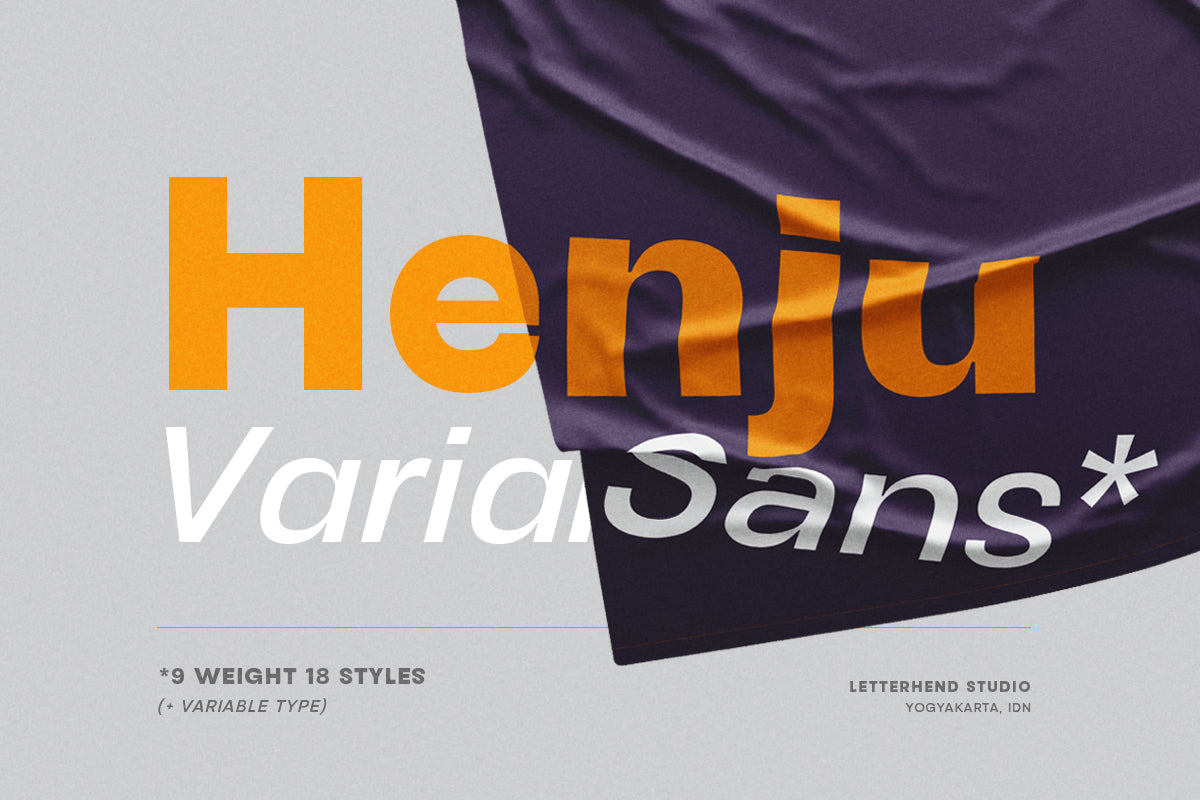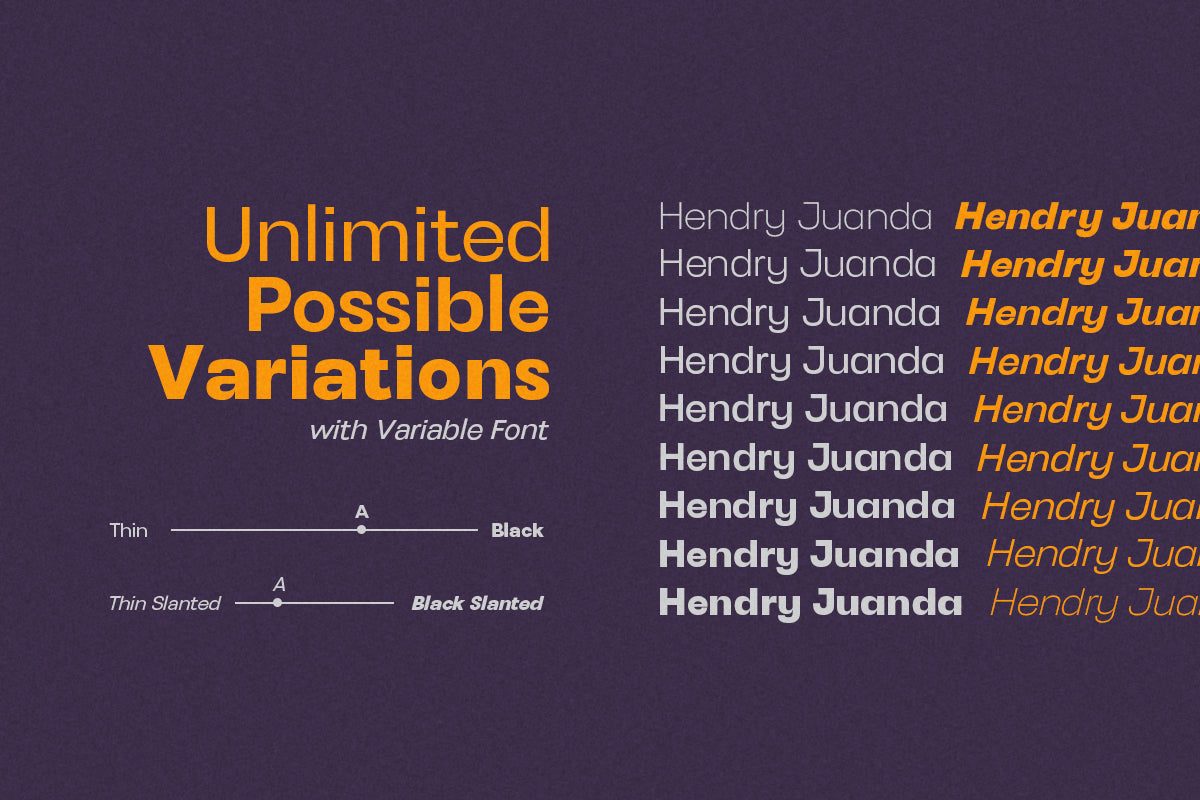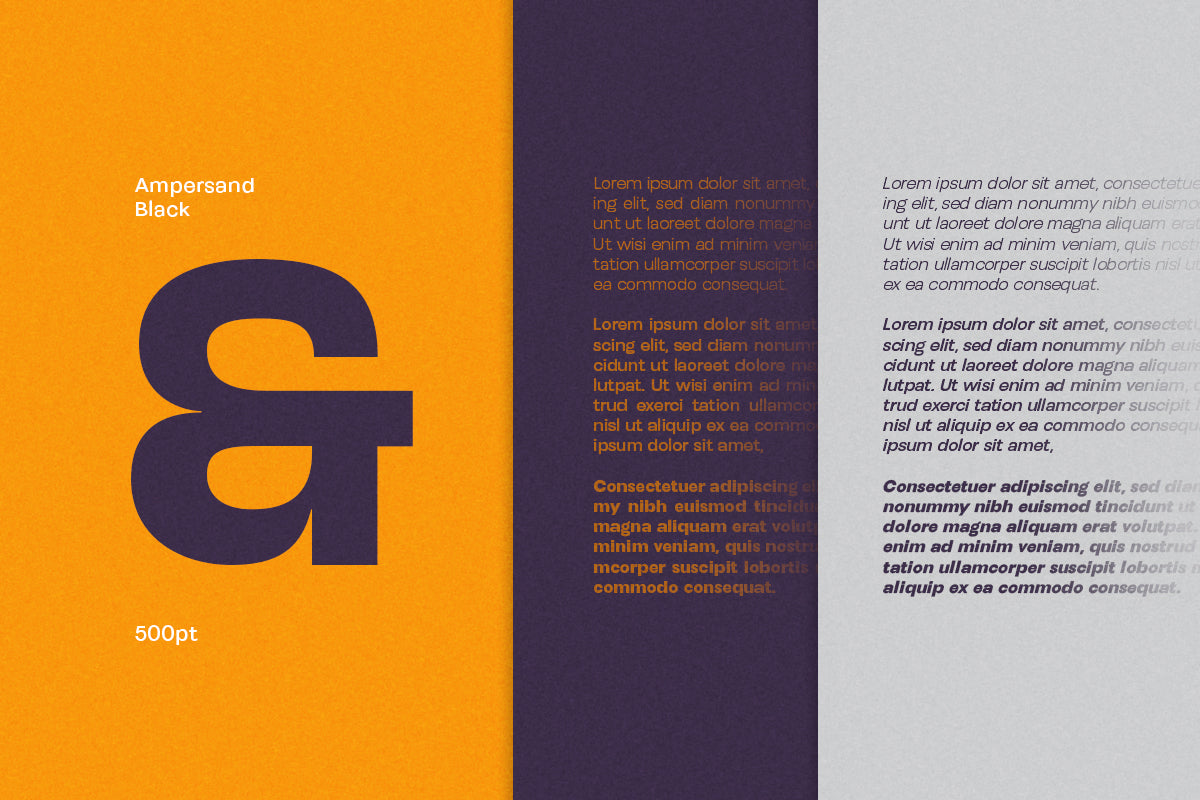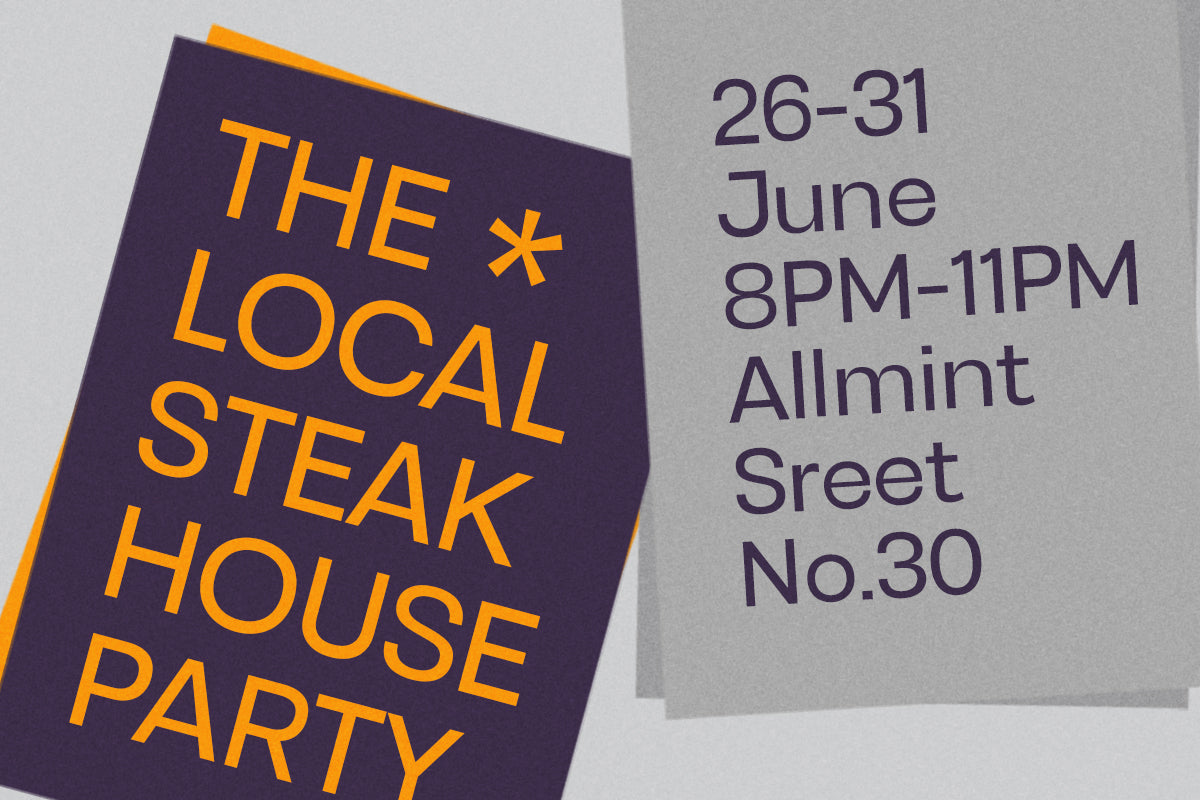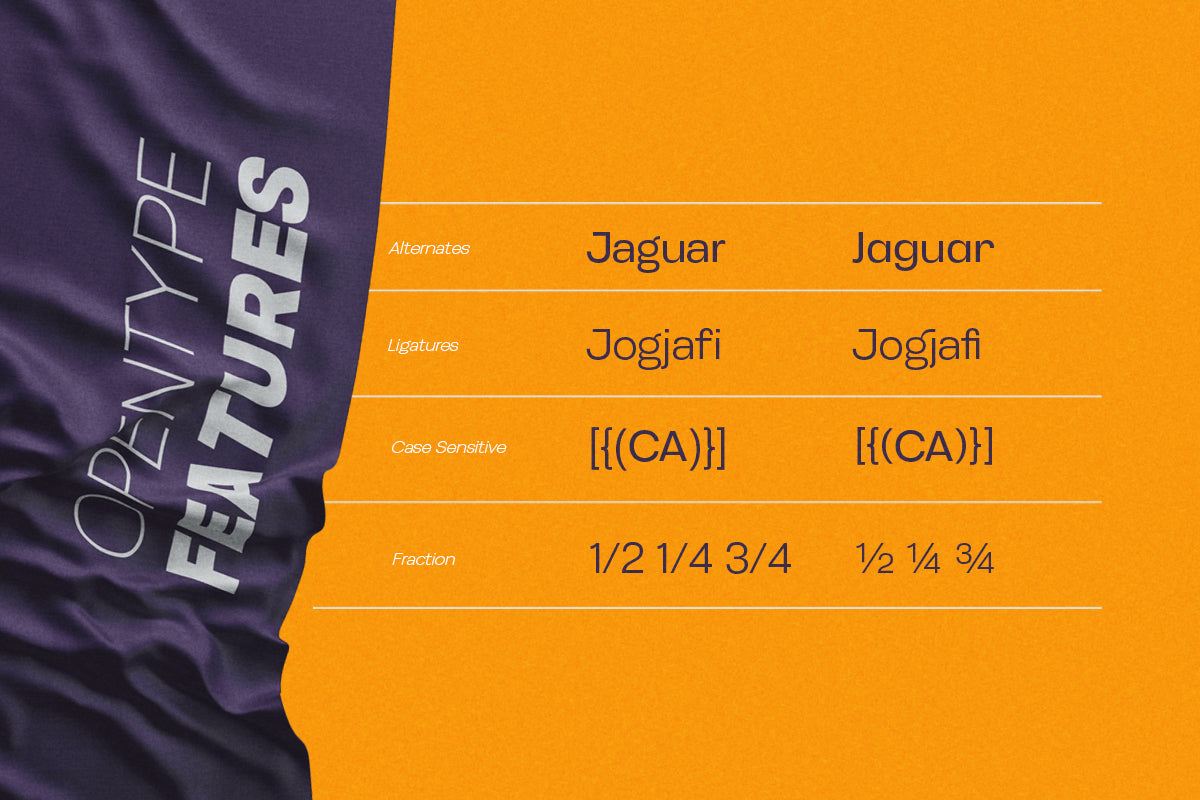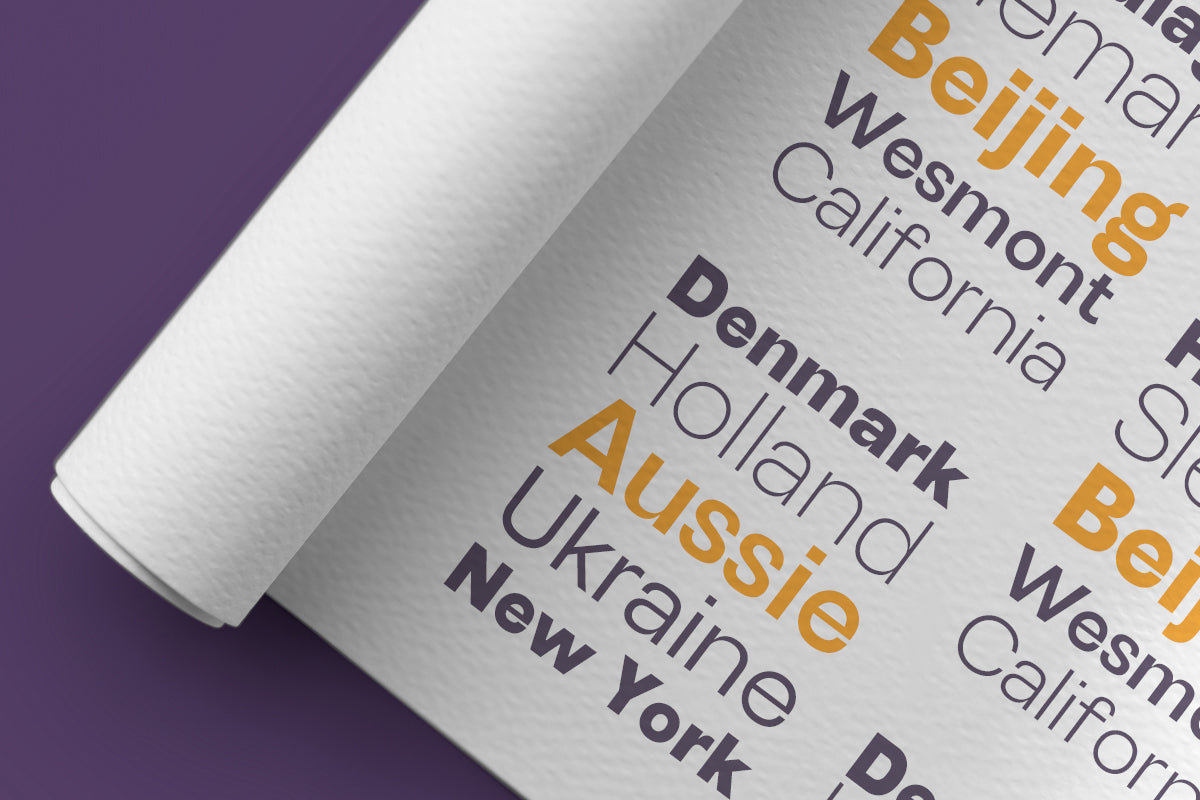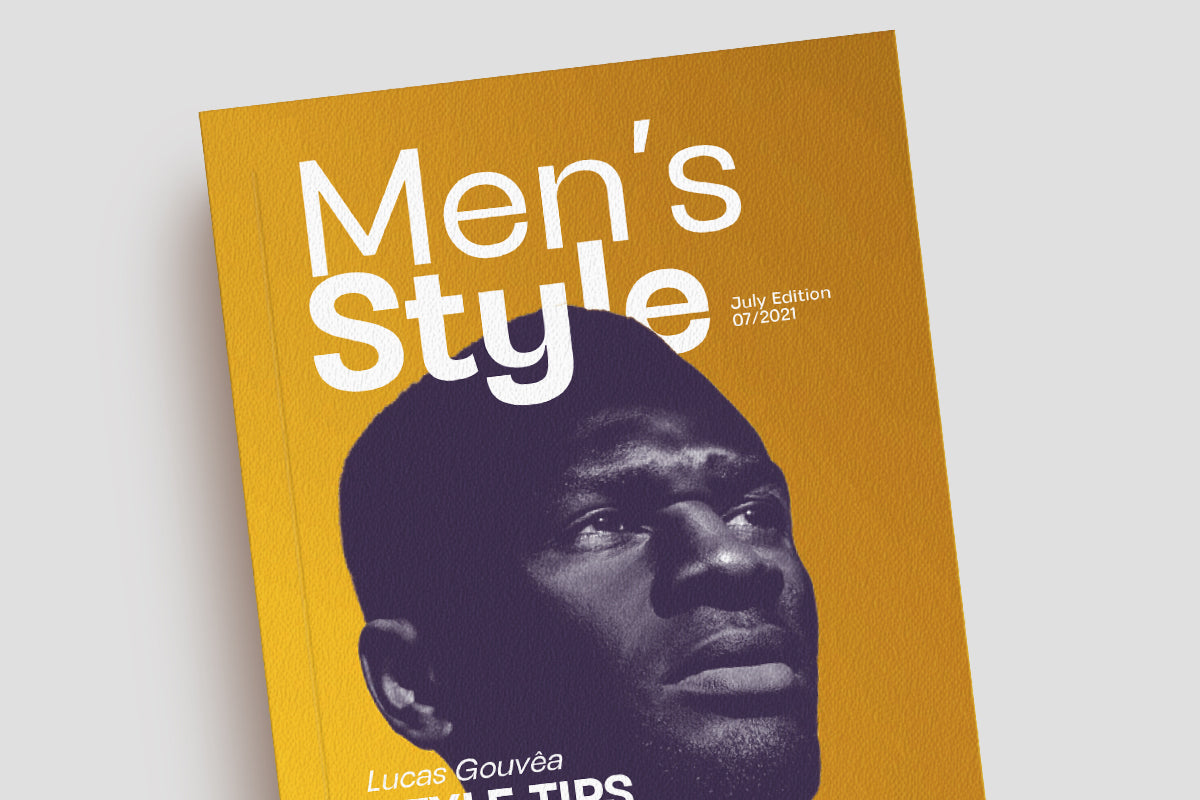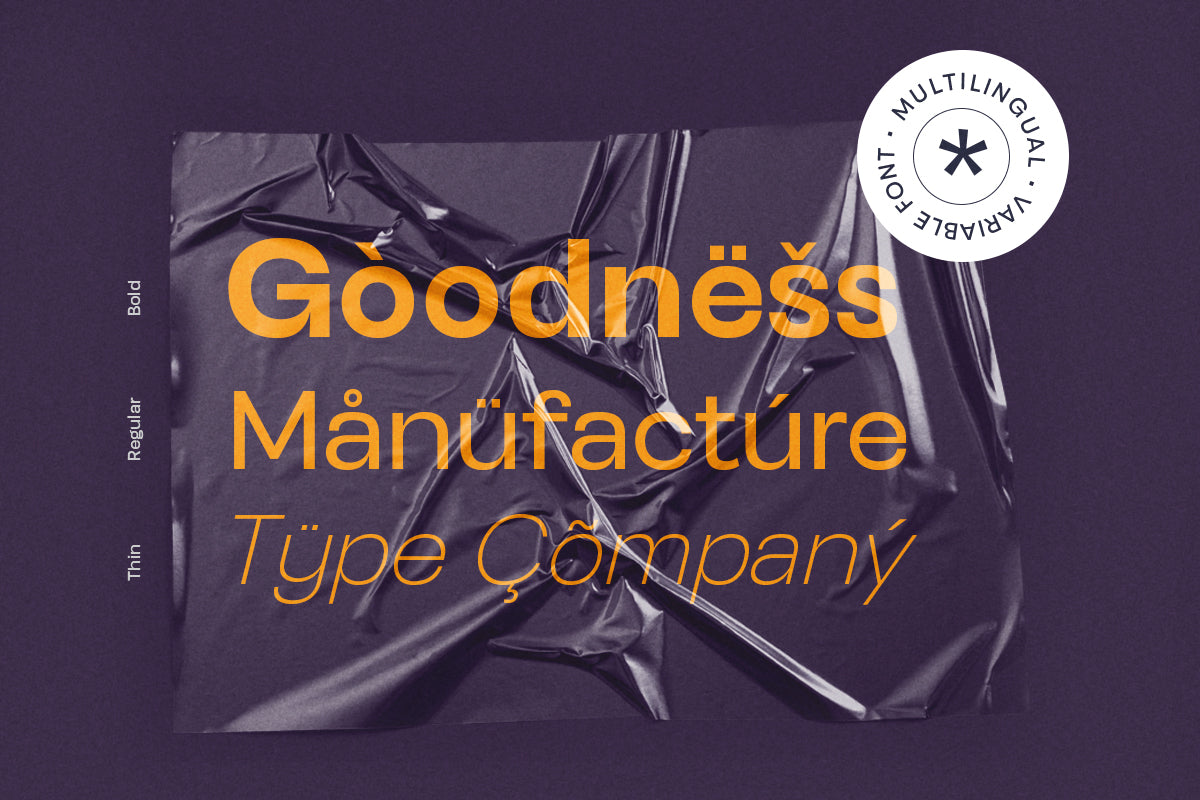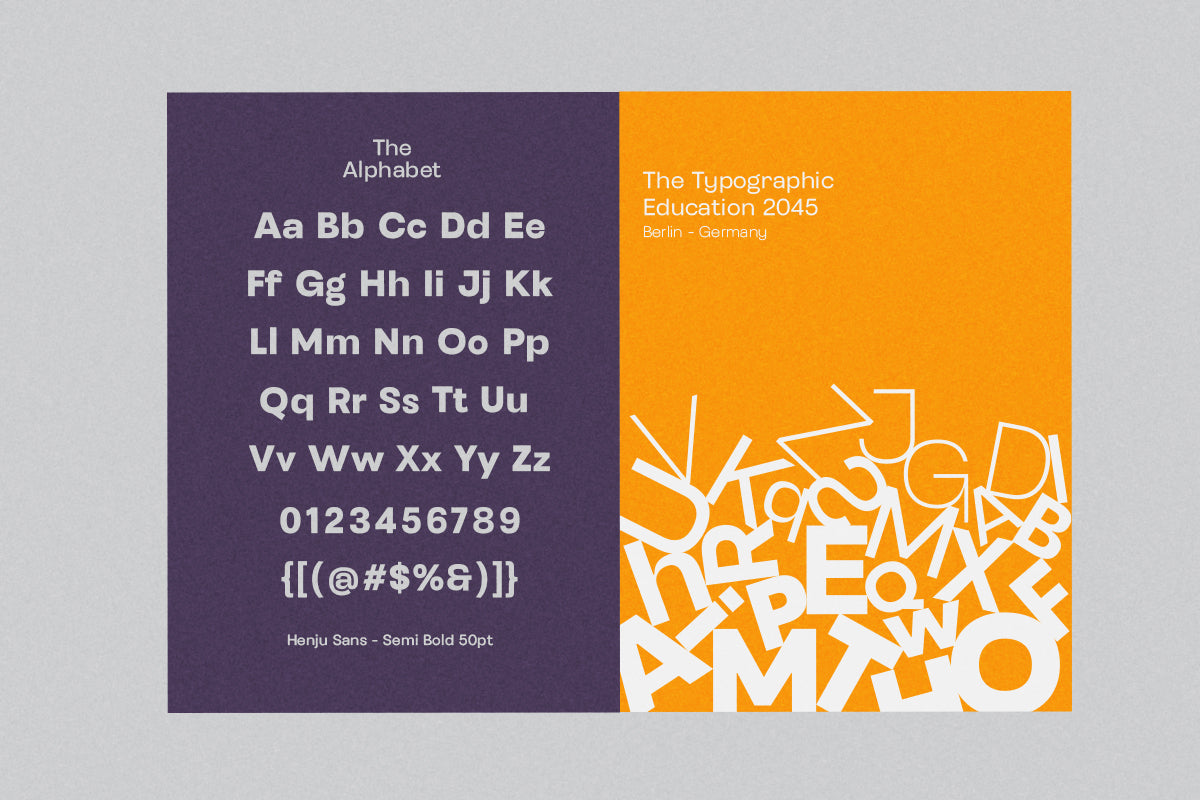
Tired of too many fonts installed on your devices? Introducing Henju Sans - Our very first variable font. Variables that make you create any custom width and weight aside from the available font files. Designed to be easily used with simple looks and good readability.
These typefaces blend seamlessly in your designs - with 9 weights, ranging from regular, medium, thin, bold, semibold, extrabold, light, extralight, and black & 18 styles + variable types that have a lot of personality. Perfect anywhere you need final touches for branding, publishing, titles, books, magazines, and UI/UX designs.
Henju's Features:
Variable Font
uppercase & lowercase
numbers and punctuation
multilingual
9 weights & 18 Styles